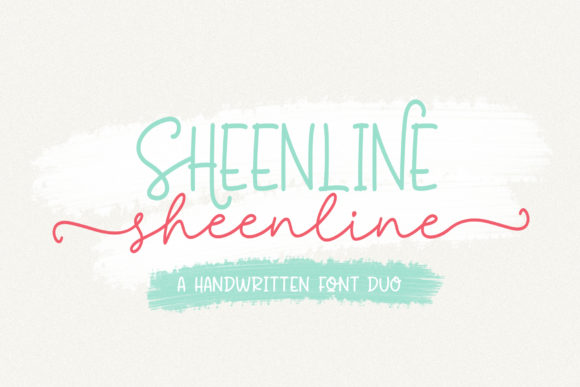
Meet Sheenline Duo Font, an enchanting handwritten font duo that will take your creative projects to new heights. With its contemporary coolness and undeniable charm, Sheenline Duo is the perfect choice for adding a touch of personality and warmth to any design.
Sheenline Duo consists of two distinct yet complementary fonts that work together seamlessly. The first font, Sheenline Script, boasts elegant strokes and playful curves, capturing the essence of handwritten beauty. Its organic flow and natural charm make it ideal for adding a personal touch to logos, branding, social media posts, and more.
The second font, Sheenline Sans, provides a modern and understated counterpoint to Sheenline Script. Its clean lines and geometric shapes create a striking contrast that adds depth and dimension to your designs. Use Sheenline Sans for headings, subheadings, and body text to create a cohesive and visually appealing look.
Together, Sheenline Script and Sheenline Sans form a dynamic duo that's perfect for creating a wide range of design projects. From wedding invitations and save-the-dates to social media graphics and product packaging, Sheenline Duo is the versatile font pairing you've been searching for.